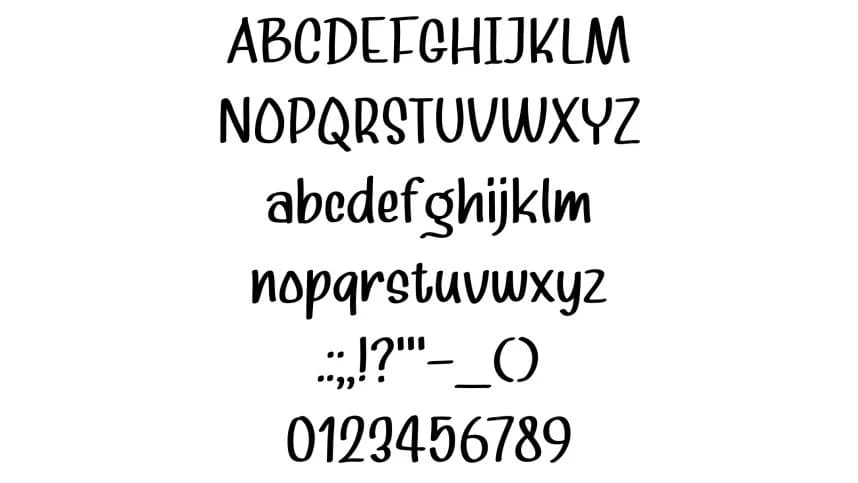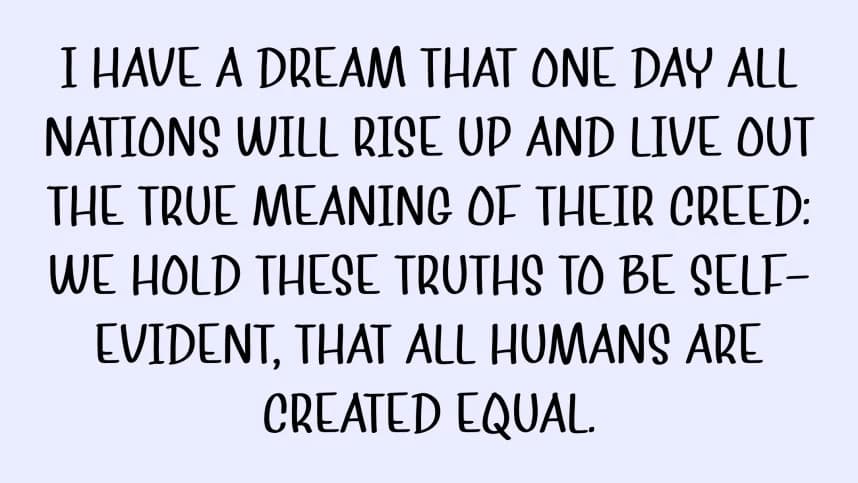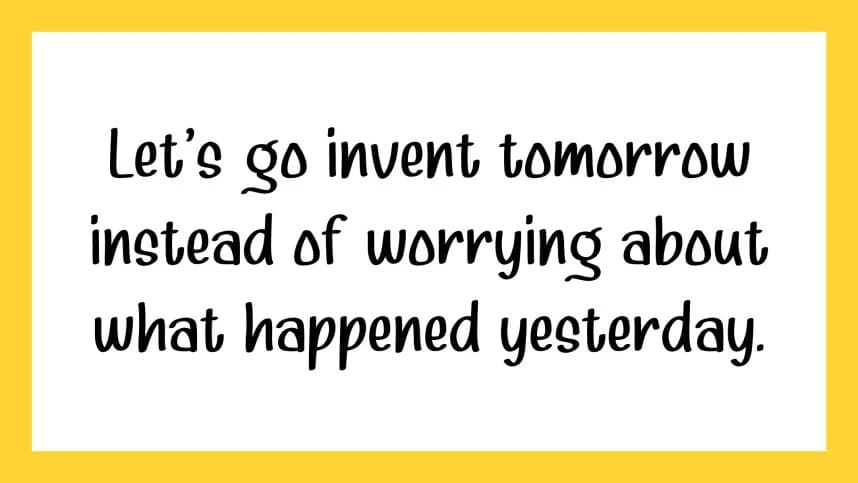
Quick Baby Font
Quick Baby Font is a cute and playful handwritten font that combines soft curves with a modern script style, creating a warm and friendly appearance. Its smooth flowing letters and charming personality make it perfect for baby-themed designs, invitations